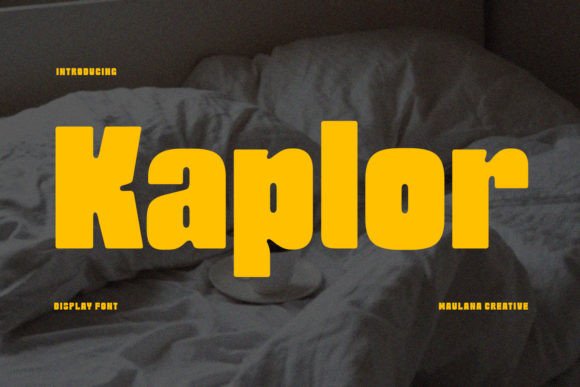
Introducing Kaplor Font: The Epitome of Modernity and Style
In the realm of typography, where letters dance and meanings unfold, lies a font that commands attention and captivates hearts. Kaplor Font, a stunning creation from Maulana Creative, transcends the ordinary, ushering in a new era of visual expression.
Prepare to be mesmerized by Kaplor's captivating fusion of geometric lines and sleek design, a testament to the harmonious marriage of sharpness and elegance. Its futuristic aura is a beacon of innovation, beckoning you to embrace the cutting-edge and redefine the boundaries of creativity.
With Kaplor, branding, technology, and fashion projects take on a life of their own, imbued with a contemporary edge that sparks curiosity and leaves a lasting impression. Its clean and bold letterforms, meticulously crafted to perfection, elevate headlines, titles, and logos to new heights of sophistication and allure.
Kaplor is more than just a font; it's an artistic masterpiece that transforms words into captivating visuals, igniting imaginations and leaving an indelible mark on the digital landscape. Its versatility knows no bounds, effortlessly adapting to a myriad of projects, from eye-catching social media posts to awe-inspiring website designs.